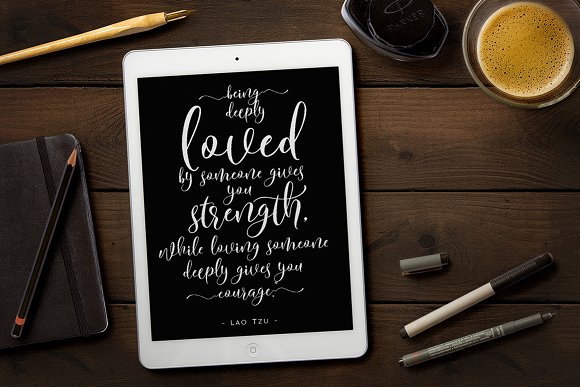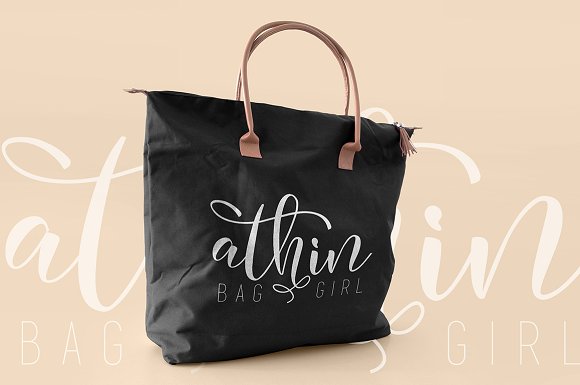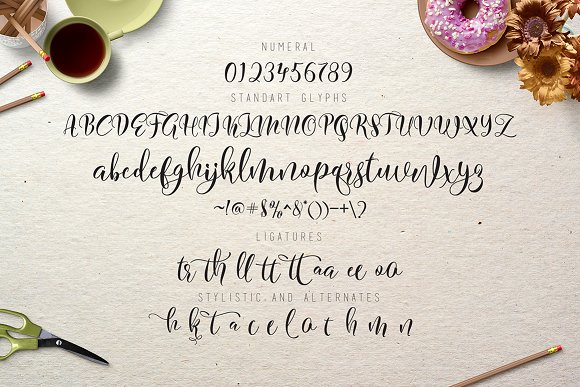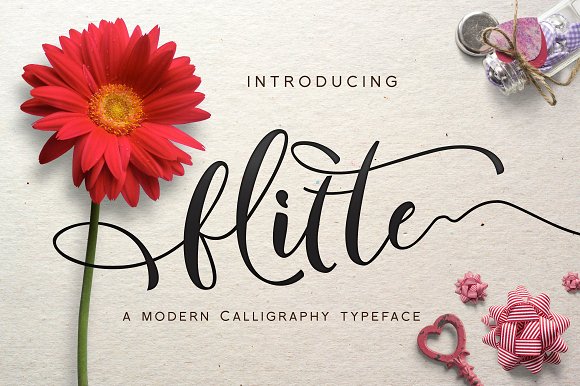
Introducing Flitte Font: The Perfect Handwritten Script for Your Creative Projects
Are you looking for a beautiful and professional-looking handwritten script font that can elevate your designs and craft projects? Look no further than Flitte Font! This stunning fluid font is perfect for a wide range of creative endeavors, from marketing and branding to crafting and DIY projects. In this article, we’ll take a closer look at Flitte Font, its features, and how you can use it to take your designs to the next level.
What is Flitte Font?
Flitte Font is a gorgeous handwritten script font that exudes elegance and sophistication. Its fluid strokes and beautiful letterforms make it perfect for creating stunning designs that capture the eye. Whether you’re looking to create a logo, branding materials, or craft project, Flitte Font is the perfect choice. Its professional look and feel make it ideal for businesses and individuals looking to create a lasting impression.
Key Features of Flitte Font
So, what makes Flitte Font so special? Here are some of its key features:
- Fluid strokes: Flitte Font features beautiful fluid strokes that give it a natural and effortless look.
- Handwritten script: This font is a true handwritten script, making it perfect for creating personal and unique designs.
- Professional look: Despite its handwritten nature, Flitte Font has a professional look and feel that’s perfect for businesses and individuals.
- Easy to read: Flitte Font is incredibly easy to read, making it perfect for body text and other applications where readability is key.
- Versatile: Flitte Font works well in a wide range of projects, from marketing and branding to crafting and DIY projects.
How to Use Flitte Font in Your Designs
Flitte Font is incredibly versatile, making it perfect for a wide range of design applications. Here are some ideas to get you started:
- Branding and marketing: Use Flitte Font to create stunning logos, business cards, and other branding materials.
- Craft projects: Flitte Font is perfect for craft projects, such as scrapbooking, card making, and other paper crafts.
- Social media graphics: Use Flitte Font to create stunning social media graphics, such as Facebook posts and Instagram stories.
- Packaging design: Flitte Font is perfect for packaging design, adding a personal touch to your products.
Why Choose Flitte Font?
So, why should you choose Flitte Font for your designs? Here are just a few reasons:
- Unique and personal: Flitte Font is a unique and personal font that will help your designs stand out.
- High-quality: Flitte Font is a high-quality font that’s been carefully crafted to ensure it looks great in any design.
- Easy to use: Flitte Font is incredibly easy to use, making it perfect for designers of all skill levels.
In conclusion, Flitte Font is a stunning handwritten script font that’s perfect for a wide range of creative projects. Its fluid strokes, beautiful letterforms, and professional look make it ideal for businesses and individuals looking to create a lasting impression. Whether you’re looking to create branding materials, craft projects, or social media graphics, Flitte Font is the perfect choice. So why wait? Download Flitte Font today and take your designs to the next level!